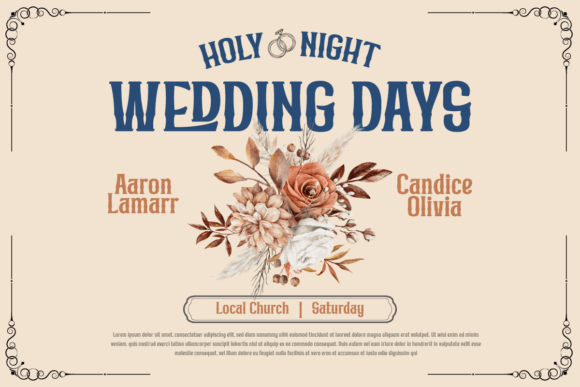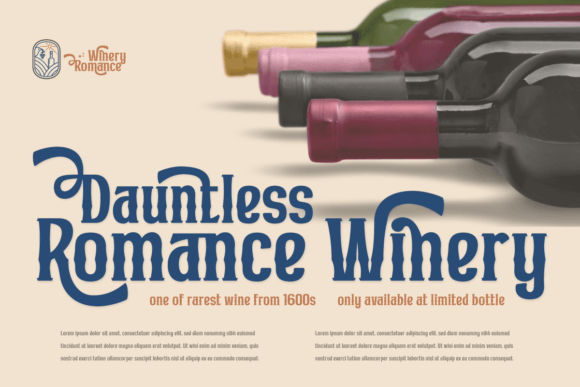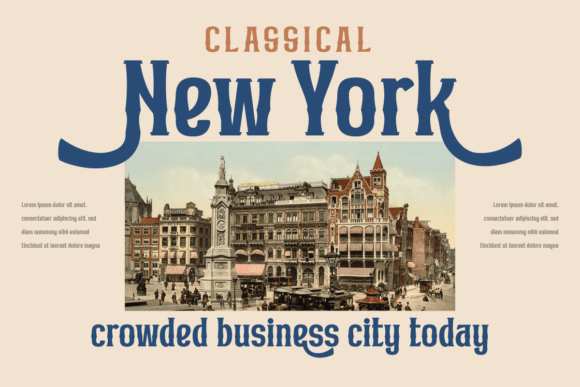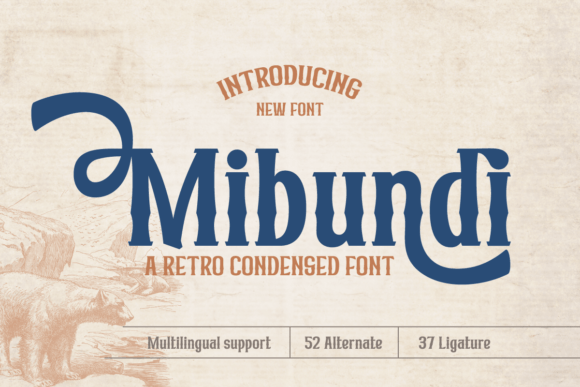
Introduction to Mibundi Font
Mibundi is ideal for applications that require a classic, retro, vintage, or condensed look.
This font’s ligature, alternative, and multilingual capabilities provide you the flexibility and creativity you need to convey your thoughts perfectly Mibundi is a handcrafted font with unique and eye-catching letter shapes that will bring the finishing touch to your project.
Key Features of Mibundi Font
Mibundi Font offers exceptional quality and versatility, making it a valuable addition to your design toolkit. Whether you’re creating for personal projects or commercial use, Mibundi Font delivers professional results.